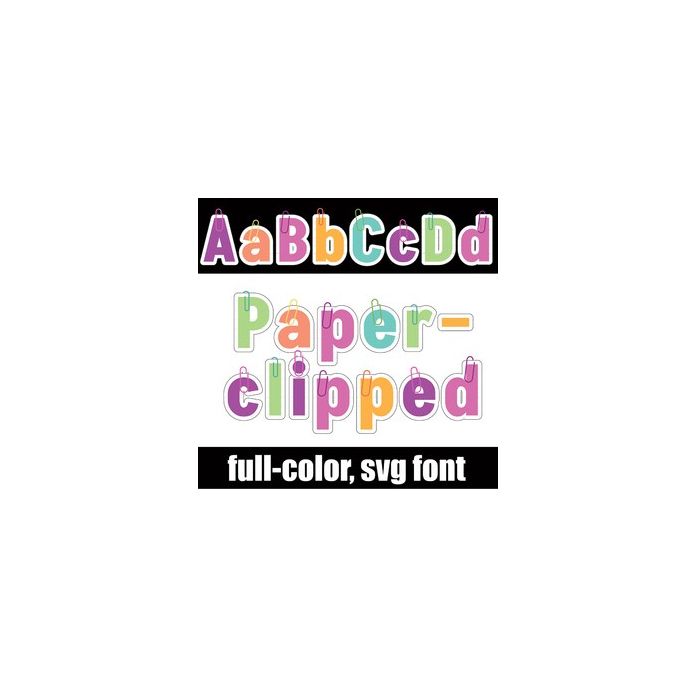
This full-color font features blocky sans serif lettering in bright colors with bright paperclips on each letter. There is an alt case w/ additional colors you can access through your system or Silhouette's glyph map.